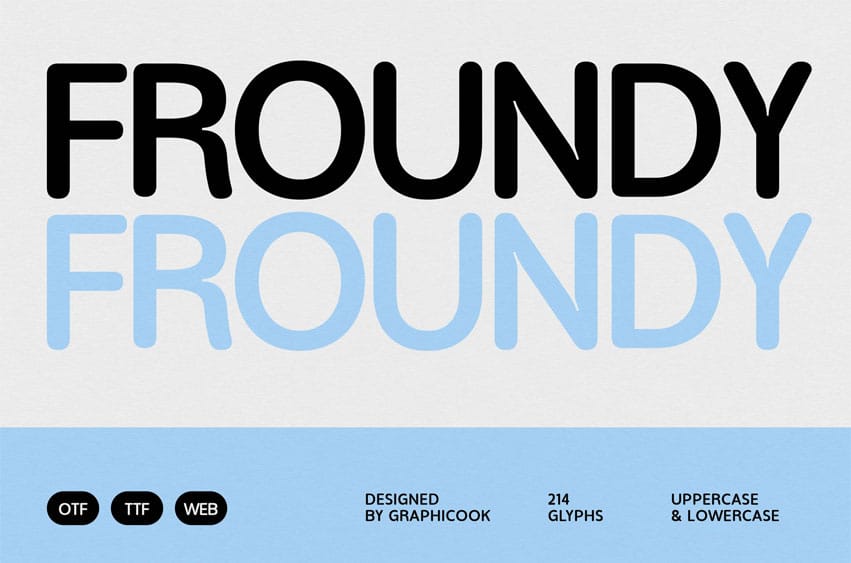
Froundy Font is a bold, rounded sans-serif font with clean proportions that strike a balance between playful and professional. Its smooth shapes give a friendly, modern impression, making it well-suited for headlines, logos, branding, and educational designs.
It is perfect for headlines, logotypes, magazines, packaging, quotes, movies, games, cover albums, book covers, and flyers. It’s a perfect solution for creating eye-catching designs that stand out in any context.